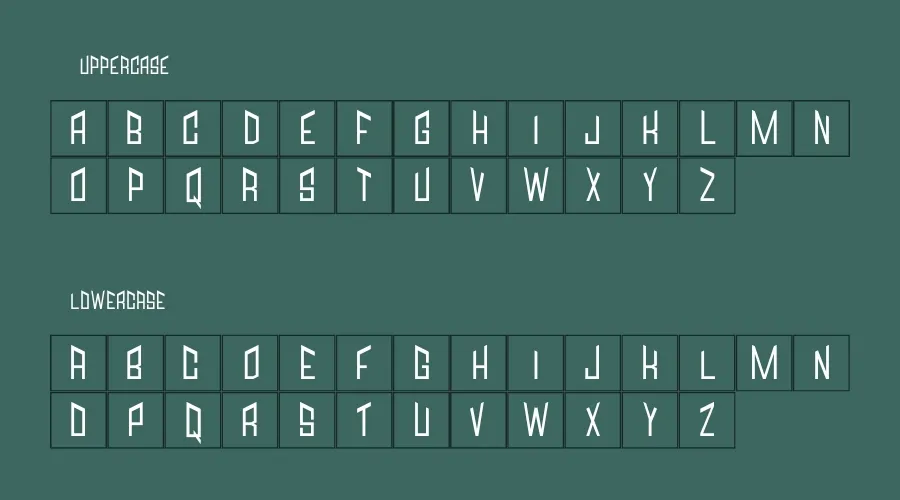
About Jagged Font
The Jagged Font is a famous techno typeface family with a unique and modern texture look appearance. This font was created by well-known American designer M.H. Rinaldi. You may get it in both file formats OpenType and TrueType.
This stunning font contains 9 unique types of weights and styles with outline faces and italic shapes. It is a variable texture and includes more the 550 glyphs.
The pairing quality of this style is awesome and can be paired with Minecrafter Font. It is a good option for saving time, and also it will give your project a more attractive look.